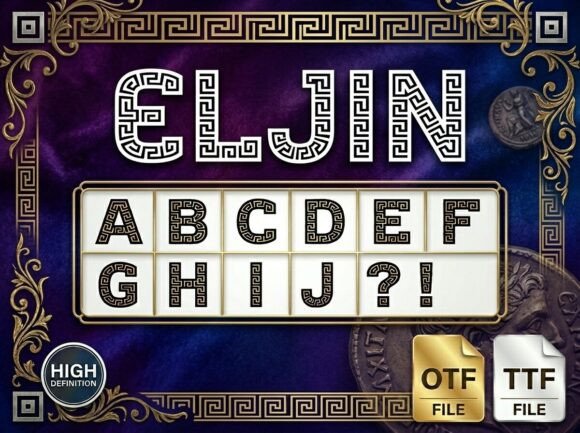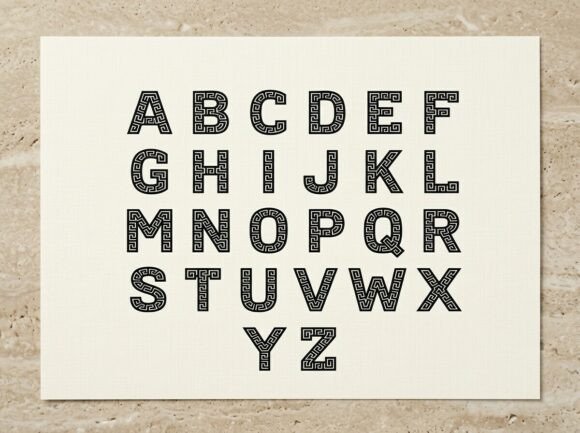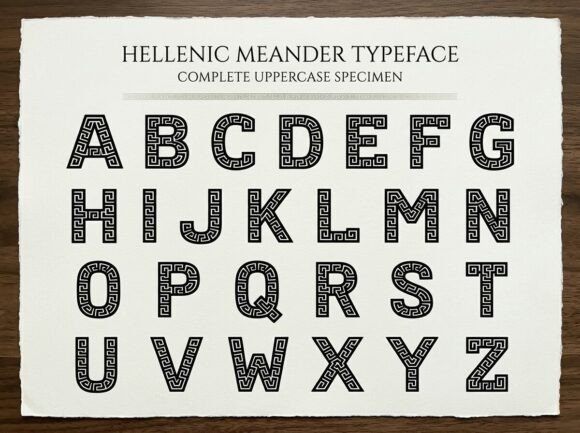
The Eljin Font: A Stunning Decorative Display Font for Creative Minds
- ✨ Unique artistic elements that make it stand out from the crowd
- ✅ Strong visual personality that’s perfect for making a statement
- 💥 Versatility – use it for bold headlines, artistic logos, and creative packaging
- 🎨 Professional and polished finish that’s sure to impress
⚠️ One thing to note is that the Eljin Font is an ALL-CAPS (Uppercase Only) display typeface, which means it doesn’t include lowercase letters. This might be a limitation for some users, but it’s actually a deliberate design choice to make each letter a work of art.
🤔 Additionally, some users might find that the font’s decorative elements can be overwhelming if not used judiciously. However, with a little creativity and experimentation, you can unlock the full potential of the Eljin Font.
The Designer Inspiration Behind the Eljin Font
The Eljin Font was designed with the creative rebel in mind – someone who wants to break away from the ordinary and make a bold statement. The designer’s inspiration for the font came from a desire to create a unique, artistic typeface that would add a touch of elegance and sophistication to any design.
Q: Is the Eljin Font suitable for body text?
A: No, the Eljin Font is a display typeface that’s best suited for headlines, logos, and decorative initials. Its decorative elements and bold personality make it less suitable for body text.